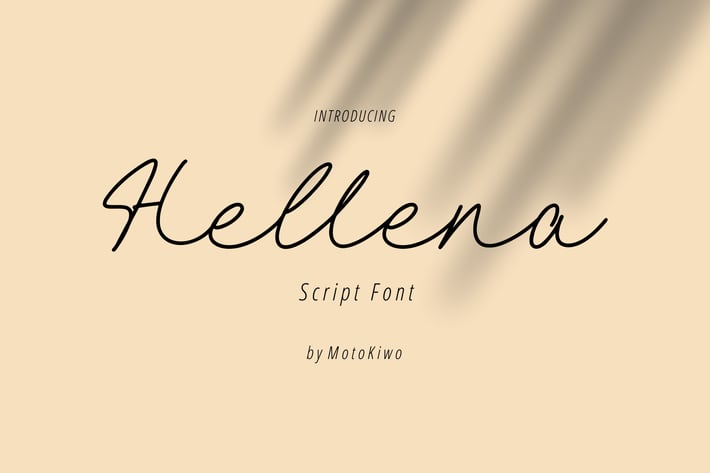
Hellena Script Font
Hellena, an elegant script font that great for fashion, quote, and many more. This font designed with uppercase, lowercase, numbers, punctuation, and also multilingual support.